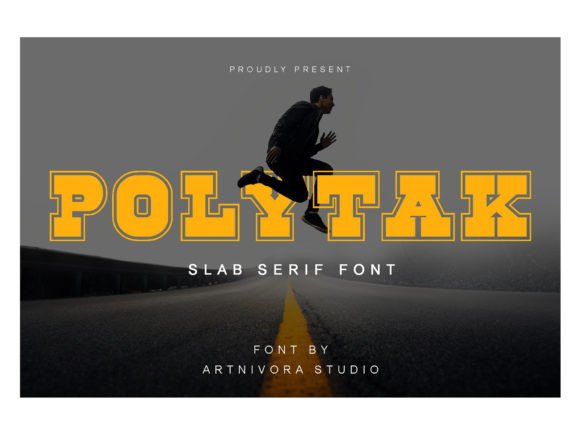
Introducing Polytak Font: The Ultimate Solution for Striking Visual Impact
In a world saturated with monotonous fonts, Polytak emerges as a breath of fresh air, a modern and sophisticated serif display font that will transform your designs into captivating masterpieces.
With its strong personality and crisp lines, Polytak demands attention, making it the perfect choice for headlines, posters, logos, and branding projects. Its versatility extends to both digital and print media, ensuring seamless integration into your creative projects.
But what truly sets Polytak apart is its unrivaled legibility, even at the smallest of sizes. Whether you're designing for a website, a business card, or a billboard, Polytak ensures that your message is communicated with clarity and impact.
With Polytak in your font arsenal, you'll discover endless possibilities for expressing your creativity. Its timeless elegance adds a touch of sophistication to any project, while its modern twist keeps your designs contemporary and on-trend.